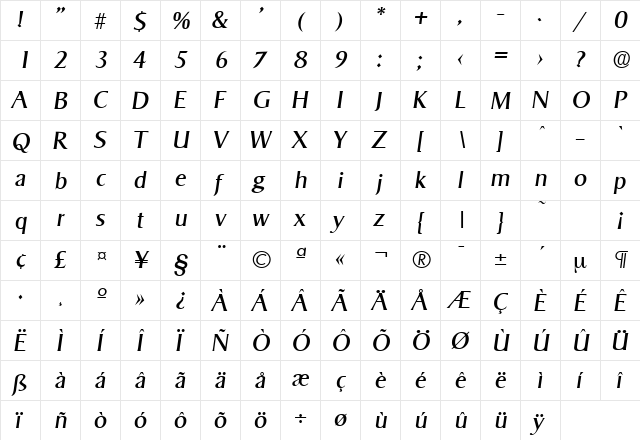
Sigvar-Serial RegularItalic
Design Context for Sigvar-Serial Typeface
Sigvar-Serial is a composed and adaptable typeface that performs quietly and consistently across a wide range of design contexts. The dynamic lean of this cut emphasises speed and emphasis in any layout.
Pro Tip: Try Sigvar-Serial for annotation and caption copy alongside an upright companion — the contrast in angle creates a dynamic but ordered typographic system.